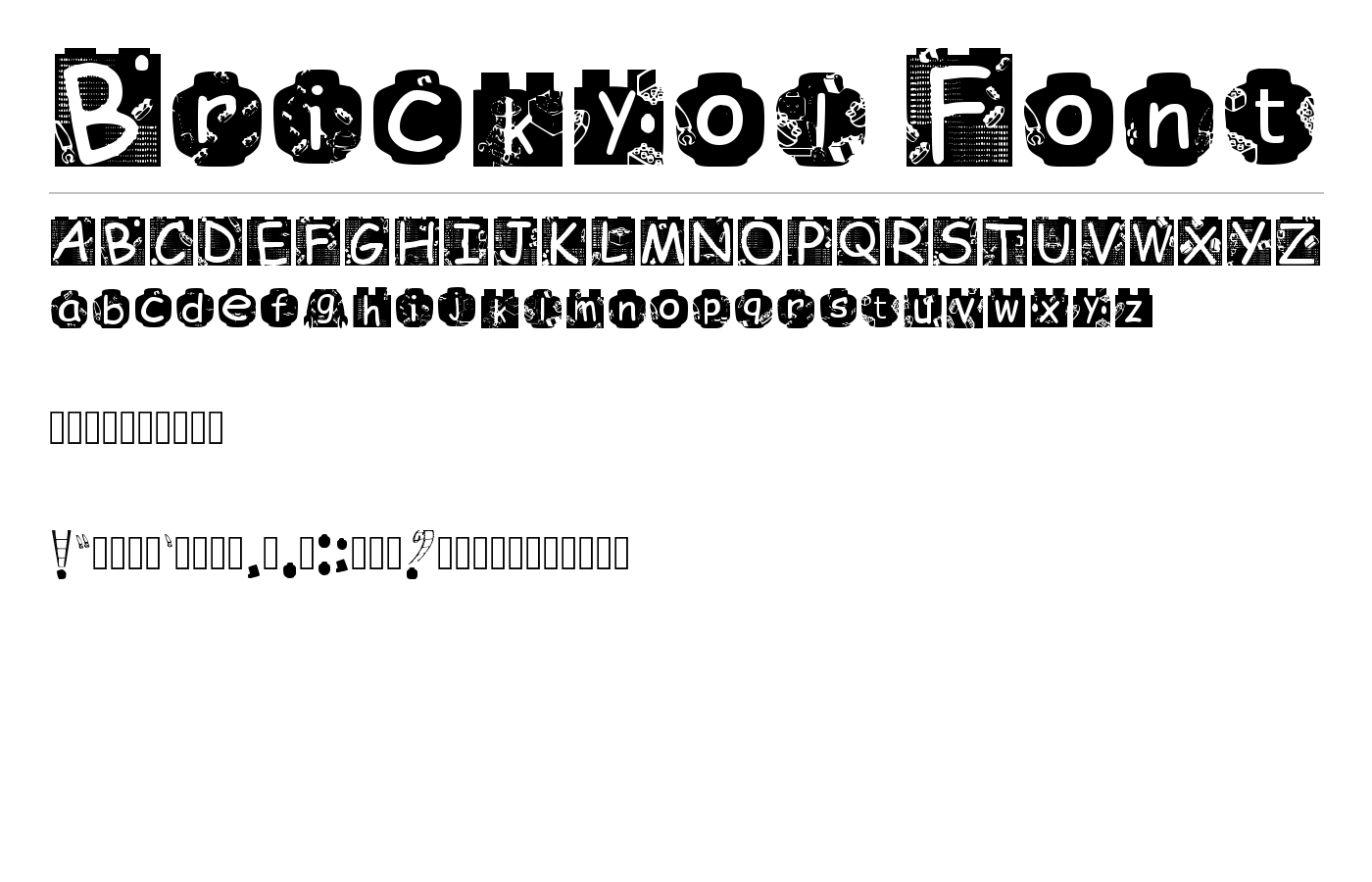
Brickyol is a bold, playful display font with a distinctive blocky, textured design that mimics a hand-crafted, slightly distressed look. Its irregular shapes and unique decorative patterns make it perfect for fun, creative projects like posters, logos, and packaging where a quirky, eye-catching style is desired. This font adds a lively, informal personality that works well for artistic and youthful brands.
Brickyol Font
About Brickyol Font